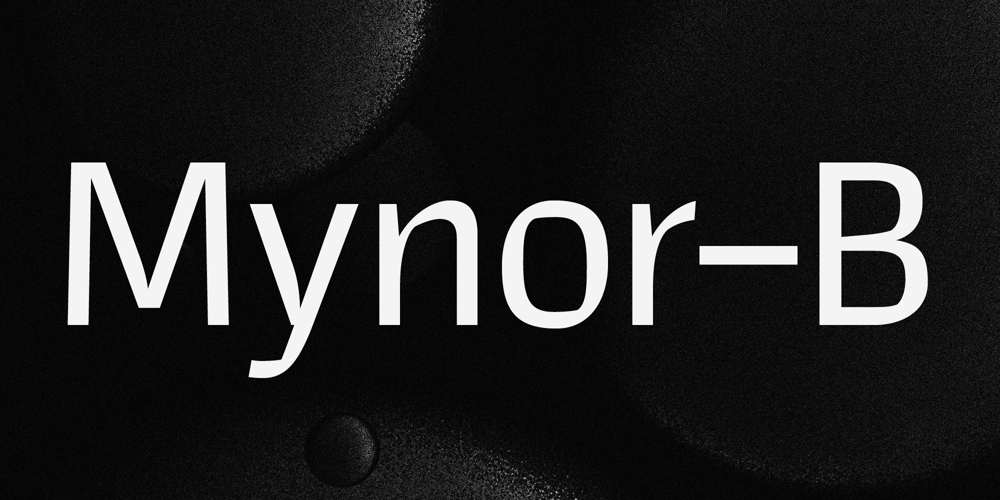
Mynor B
Mynor B font
Mynor B Font Family was designed by Jonathan Hill and published by The Northern Block. Mynor B contains 13 styles and family package options. Mynor-B departs from its predecessor, Mynor, which had a squarish geometric design. The shift aims to make the typeface more humanist, expressive, and readable, especially in longer texts. Inspired by Kintsugi, Mynor-B introduces organic forms and expressive elements, creating a dynamic visual experience. This change adds a human touch and improves legibility for extended reading. Essentially, Mynor-B balances a more humanistic and expressive design, making it versatile for various applications while acknowledging its origin in Mynor’s geometric style.The font includes seven weights and obliques, with over 950 characters per style. It boasts fourteen number variations, alternate lowercase characters (a, g, l, and y), and special glyphs like arrows. Small caps expand design options for headings and captions. With extensive language support encompassing Western, Southern, and Central Europe, plus Vietnamese.